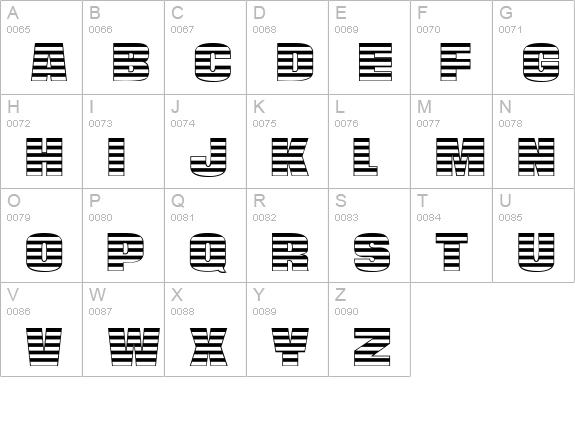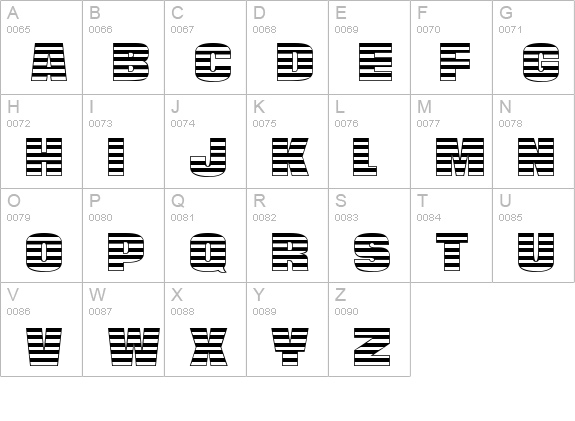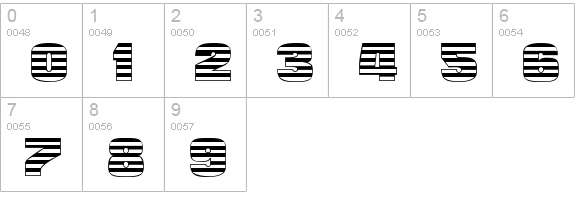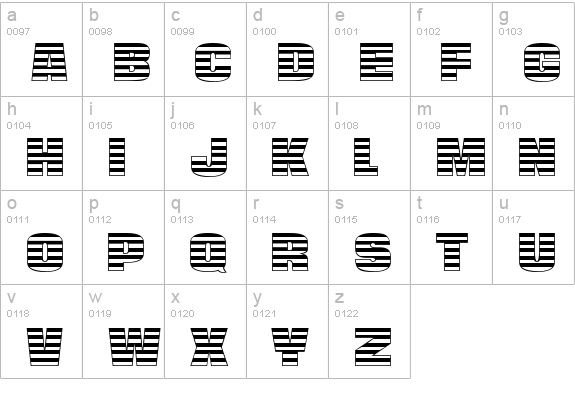
StriperCaps Font Details
Introducing StriperCaps font, a versatile and modern typeface that brings a unique touch to any design project. This font features clean lines and sharp edges, making it perfect for a variety of applications such as logos, headlines, posters, and more. StriperCaps font exudes a sense of sophistication and style, adding a professional look to your creations. The best part is, StriperCaps font is completely free to download at FontsMarket.com. This means you can easily add this stunning font to your collection without breaking the bank. Don't miss out on the opportunity to elevate your designs with the sleek and contemporary StriperCaps font. Download it today and start creating eye-catching visuals that stand out from the crowd.